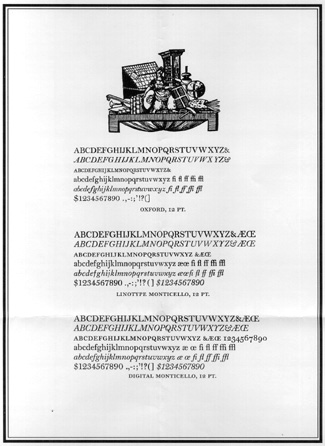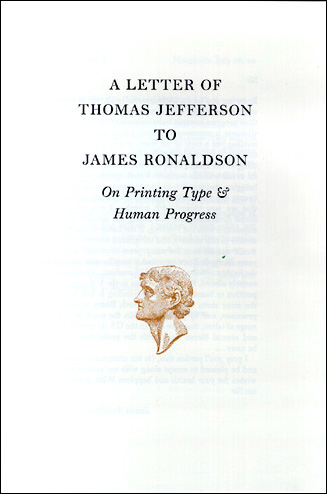
Matthew Carter's Monticello is a revival of the typeface used to print Thomas Jefferson's complete papers.
Thomas Jefferson wasn't a typographer, but he took an interest in every kind of technology and scientific knowledge in his time, and he encouraged the development of homegrown American industry to promote the growth and independence of the new nation. When Archibald Binny and James Ronaldson, immigrants from Scotland who had established a type foundry in Philadelphia, asked the former president for his help in obtaining antimony (used in casting metal type) when their existing supply was interrupted by an international trade dispute, Jefferson helped them find a new source in France. And in later years, Jefferson expressed his admiration for the types of Binny & Ronaldson, which by the 1820s had become the most commonly used types in the United States.
Binny & Ronaldson was one of the first type foundries in the United States, established in Philadelphia in 1796.
Graphic tastes change, however, and Binny & Ronaldson's "Pica Roman No. 1" was eclipsed by newer types in the middle of the 19th century. When it was revived in 1892, under the name "Oxford," by the American Type Founders Company (a grand consortium of most of the US type foundries, formed in reaction to the competition of the newly invented typesetting machines), the typeface became a favorite of several of the foremost American typographers and book designers, including Bruce Rogers and Daniel Berkeley Updike.
Updike used it as the text type for his monumental two-volume study of the history of type, Printing Types: Their History, Forms, and Use (which had the secondary subtitle A Study in Survivals), where he described Oxford as a "transitional" design between the old-fashioned style of old face (such as Caslon) and the crisper but less readable "modern" style derived from the work of Bodoni and Didot. He praised Oxford very simply but tellingly: "I have used it for this book. It seems to me a type of real distinction."
More than a hundred years after Jefferson admired the typeface that came to be called Oxford, Princeton University Press proposed to publish Jefferson's complete papers, and C.H. Griffith of Mergenthaler Linotype suggested that it should be done in "a historically appropriate typeface, one with which Jefferson was intimately familiar and which he expressly admired" (according to the broadside that accompanies the new digital adaptation). With the help of P.J. Conkwright, book designer at Princeton, Griffith worked on developing a machine version of Oxford that could be used on the Linotype. "Together they strove to preserve the spirit and style of the original design while moving it to a radically different technology. It would take them six years to complete the roman, italic, and small-capital fonts in seven sizes (7, 8, 9, 10, 11, 12, and 14 points), each of which required a separate cutting." They named the new Linotype version "Monticello," in honor of Jefferson.
A resetting in digital Monticello of an illustration in metal of which C.H. Griffith wrote, "These enlarged letters show the rather lively variation in serif treatment and bracketing which contribute to the inherent readability of Monticello."
But the Linotype, too, eventually became old technology, supplanted by the new. The Press's printing program used Monticello in hot metal for many years, but by the 1980s they had to enter the era of digital typesetting, and they had to somehow adapt Monticello. Mergenthaler supplied a digital version that would work on the Linotron 202 digital typesetter, but there were many compromises involved, and with each new turn the typesetting technology took, the makeshift nature of this first digital adaptation of Monticello became more and more apparent. Finally, in 2002, Princeton University Press turned to Matthew Carter and commissioned him to create a new digital Monticello that could take advantage of modern typesetting systems.
The centerpiece of a broadside prepared to show the original Oxford foundry type, the hot-metal Linotype Monticello, and the new digital Monticello together.
Going Back to Roots
A digital font does not need to make some of the compromises that were necessary in adapting a design to the Linotype machine. It was no longer necessary for the italic alphabet and the roman to have exactly the same width (in most type families, the italic looks most natural when it's a bit narrower than the roman), and there was no need to avoid overhanging kerns like the projecting ends of the italic "f." While Carter's brief was to adapt Linotype Monticello to PostScript, he also looked back to the original Binny & Ronaldson types and brought back some of the features that had been lost in the interim.
The development of digital Monticello: top, the unedited data supplied to Matthew Carter by Linotype; middle, a PostScript font converted from the Linotron 202 data, with tiny straight lines but no curves; bottom, the new digital Monticello.
One feature that had been added in the interim has been kept as an option in the new typeface. Although Oxford had, in keeping with the prevailing style when it was first cast, possessed only lining figures (uppercase figures, all of them the same height, though in this case not as high as the capital letters), when Linotype was developing a photo version of Monticello in 1973, it had added old-style (lowercase) figures as well. The new digital Monticello offers two versions of both the roman and the italic fonts: one with lining figures, one with old-style figures. (Matthew Carter told me that in the hot-metal version of Monticello, the small caps font that Linotype shipped with the typeface was in fact taken from Baskerville, and that before the advent of old-style figures for Monticello, printers had to take them from other fonts; the old-style figures from Caledonia worked surprisingly well.)
The Linotype outline character with the new digital version superimposed on top of it. "This shows," Carter says, "that the weight was not added by dipping the too-light version in chocolate, but by selectively putting more on the serifs than on the upright strokes."
Since the digital Monticello is intended primarily for book work, it has to appear strong and dark at small sizes. It has none of the spindliness that sometimes appears in digital (and photo) adaptations of metal typefaces. Compared to the 12-point Linotype Monticello, digital Monticello's characters are a bit wider, more like the proportions in the smaller sizes of the metal type. The fit of the letters seems a little bit tighter, especially at small sizes (though in digital typesetting the spacing can be varied easily enough, for good or ill).